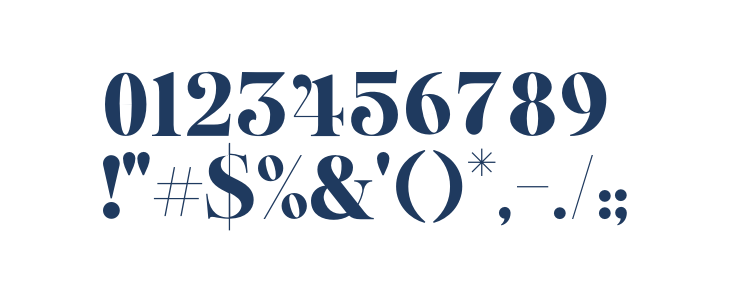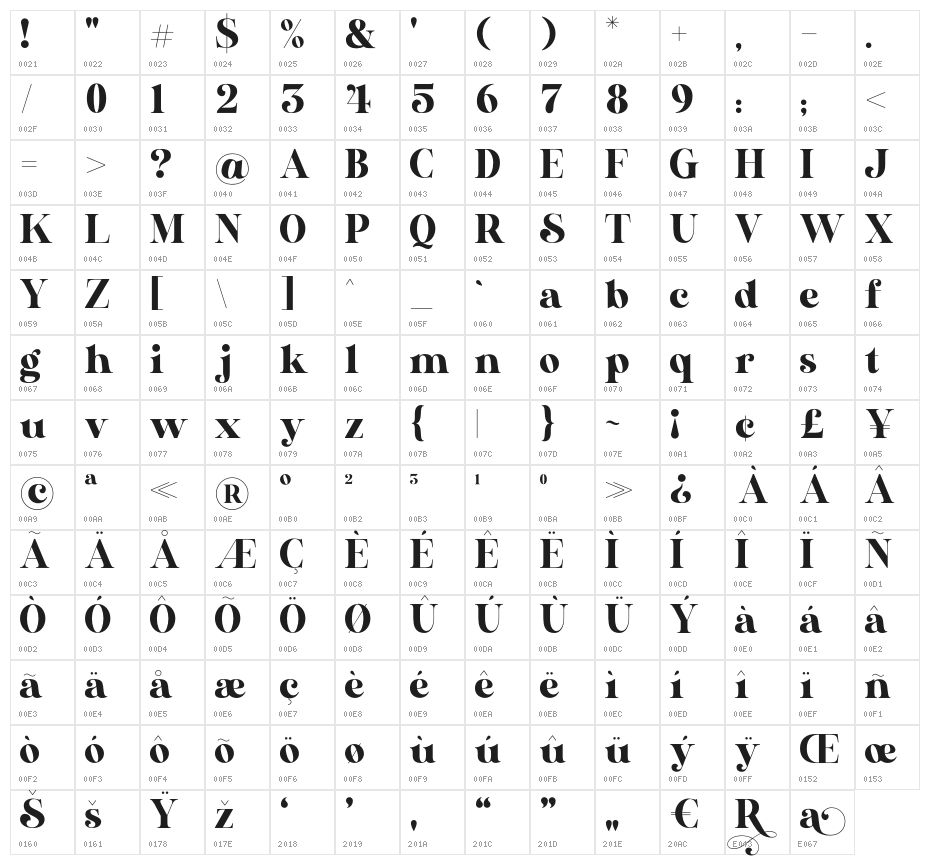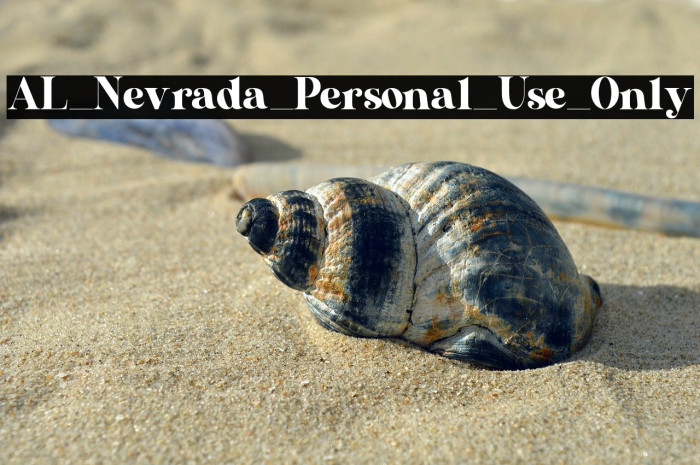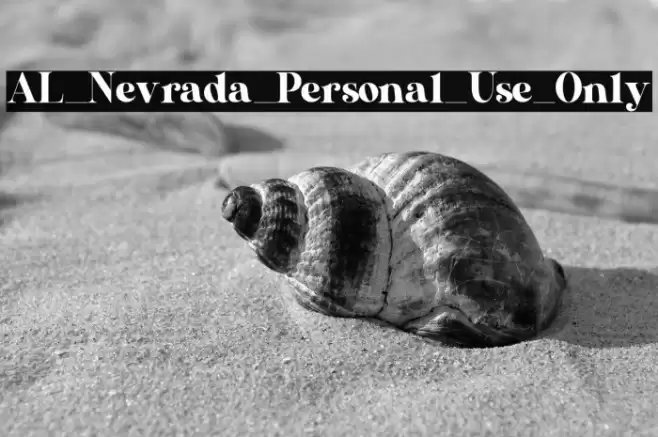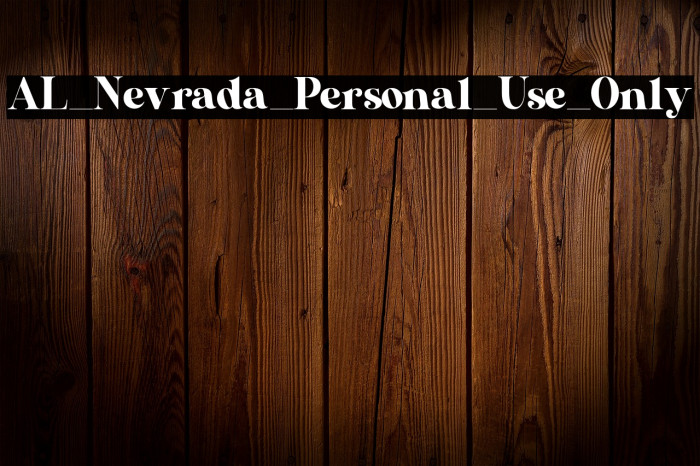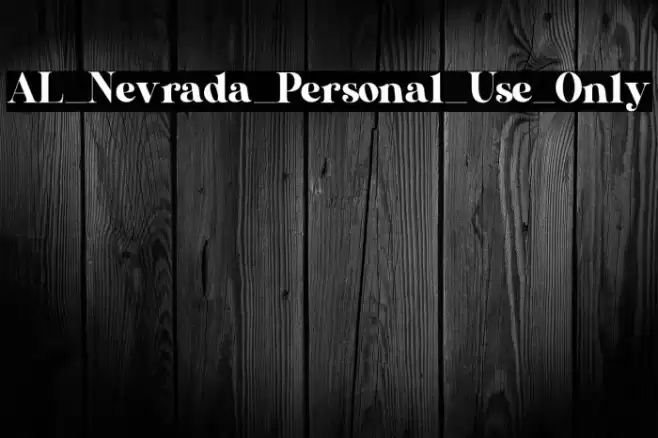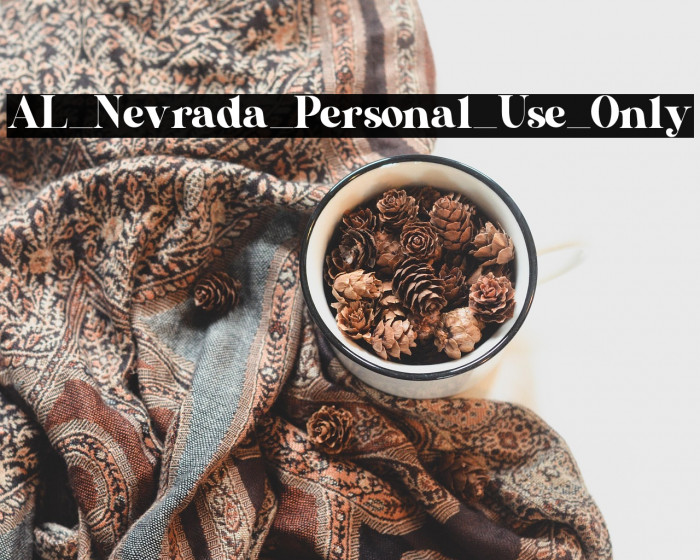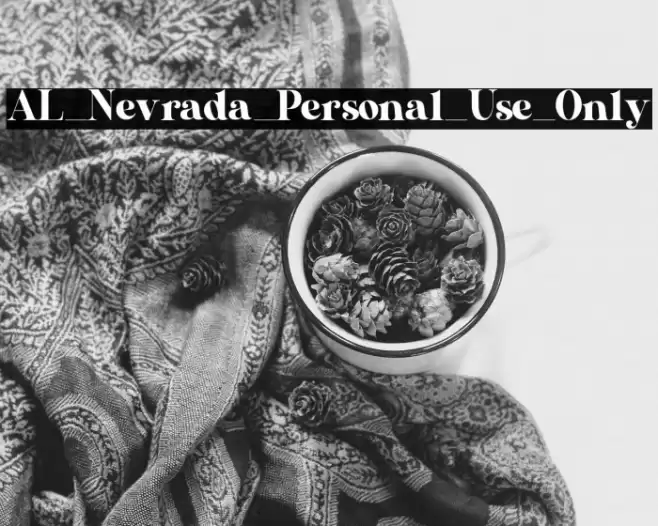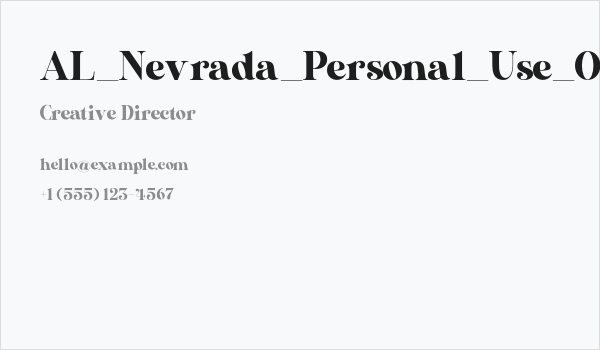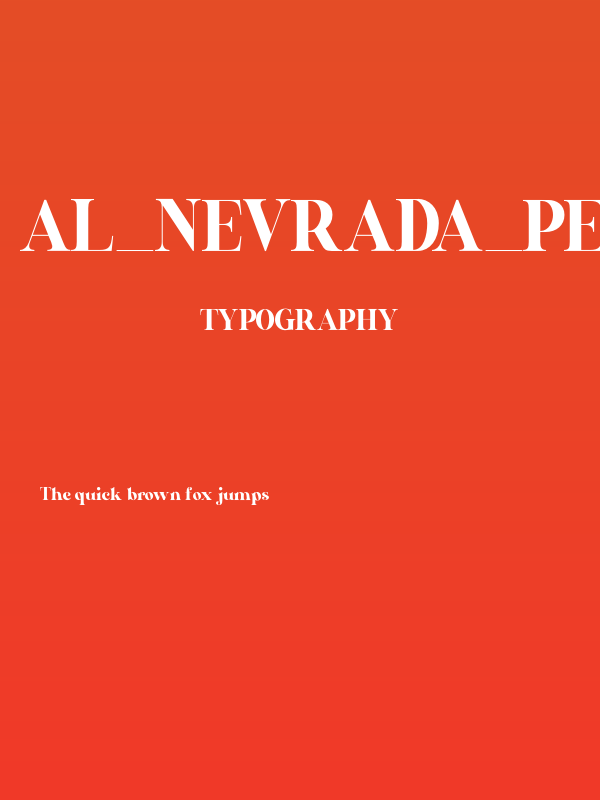
AL_Nevrada_Personal_Use_Only Font
AL_Nevrada_Personal_Use_Only Description
This font features a bold and dramatic serif style with high contrast between thick and thin strokes, giving it a strong and authoritative presence. The uppercase letters are particularly striking, with sharp serifs and a slightly condensed form that adds to their impact. The lowercase letters maintain the boldness, with rounded forms that balance the sharpness of the serifs. Numbers and special characters are equally bold, ensuring consistency across all text elements. The overall design is reminiscent of vintage typefaces, yet it carries a modern flair that makes it suitable for contemporary use.
| Overall Style | Vintage, Modern |
| Proposed Projects | Ideal for branding, headlines, posters, and editorial design where a strong, impactful presence is desired. |